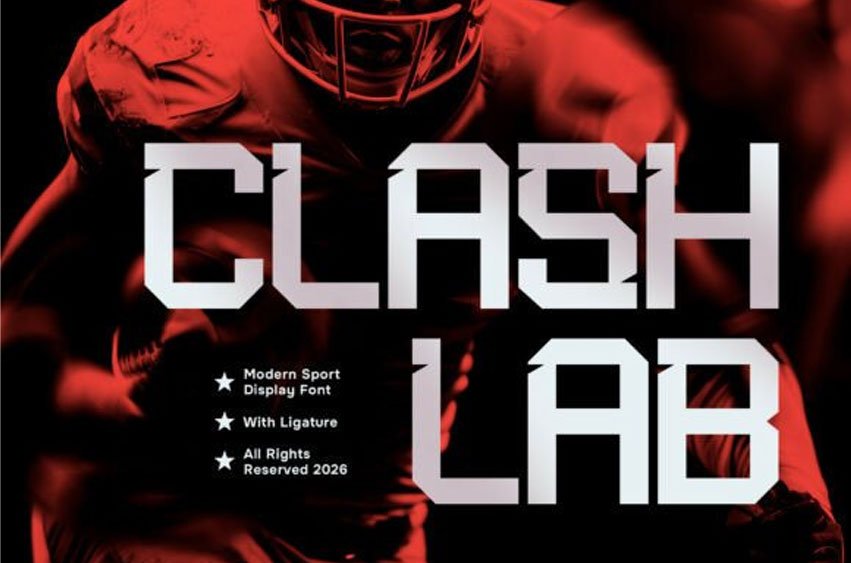
Clashlab Font is a modern sport display font designed to deliver bold energy and a strong competitive edge. With its sharp cuts, solid structure, and dynamic letterforms, Clashlab creates a powerful visual impact that instantly stands out.
The design reflects speed, strength, and precision—perfect for high-performance and action-driven projects. Built for maximum visibility, Clashlab excels in large-scale typography where its sporty character and modern details can truly shine. Its clean yet aggressive style ensures readability while maintaining a striking and confident presence.